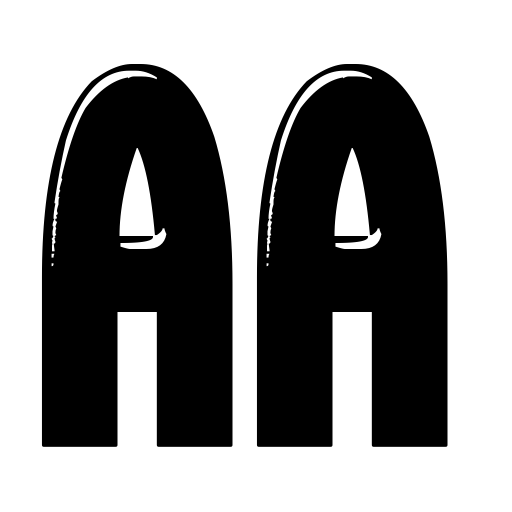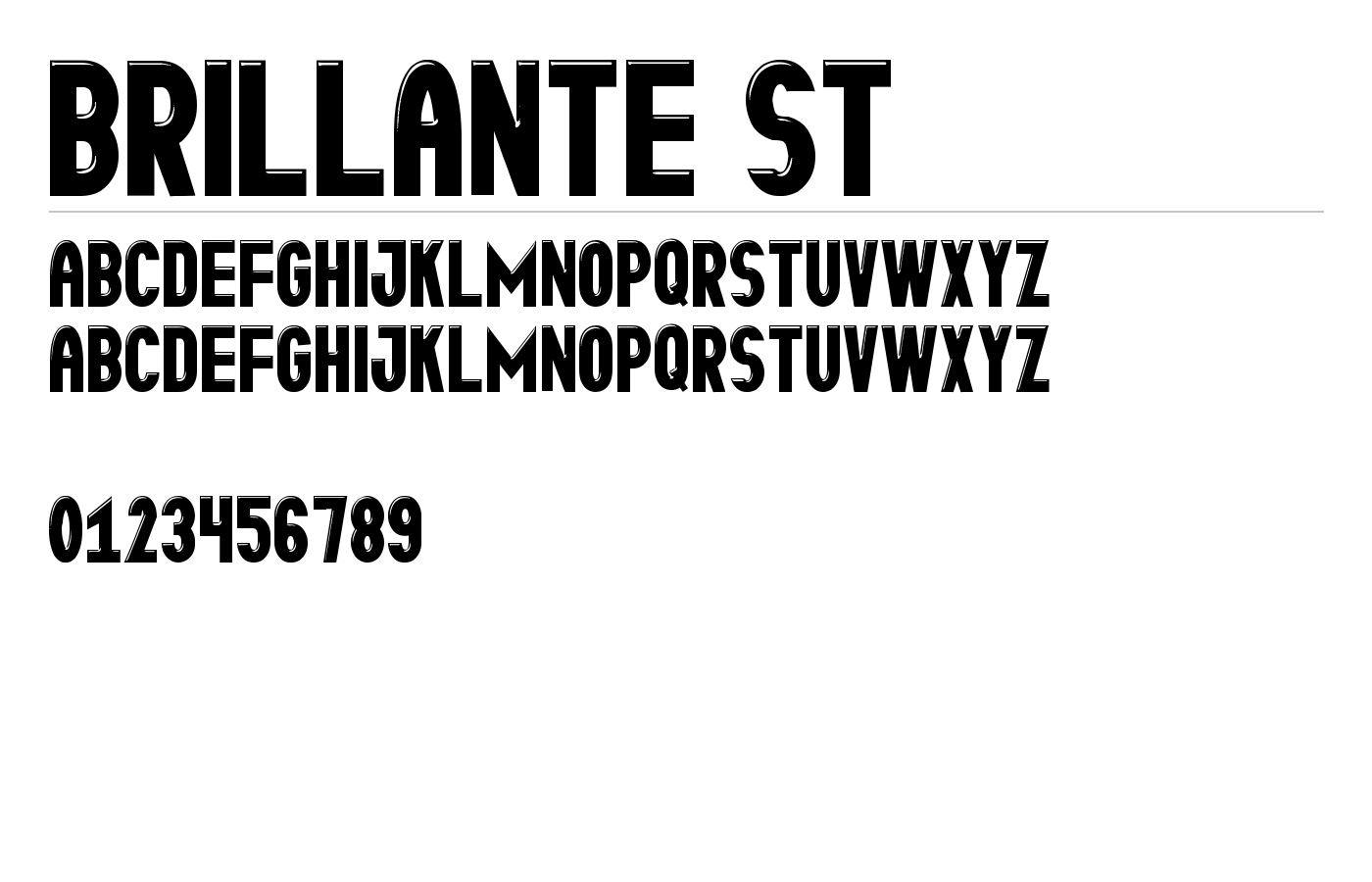
Brillante St is a bold, condensed sans serif font with high contrast and a distinctively sharp, geometric style. Its uppercase-only design, along with unique letterforms featuring angled cuts and dramatic shadows, gives it a modern yet vintage poster-like feel, making it perfect for eye-catching headlines, logos, and branding that demand strong visual impact. This font stands out in fashion, entertainment, and editorial designs where boldness and personality are key.
Brillante St Font
About Brillante St Font
| Font family | Brillante St Font |